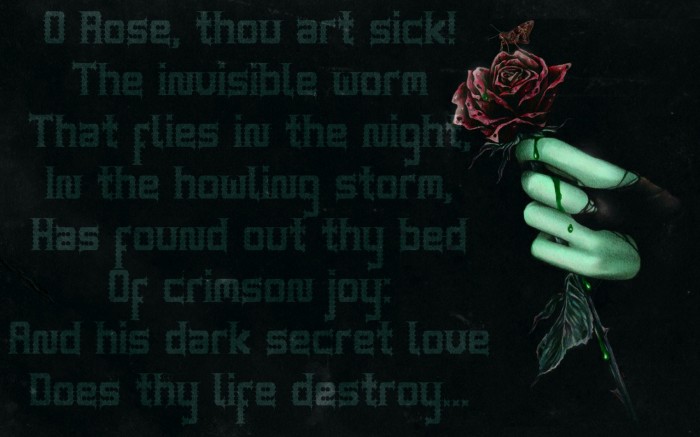
One example of this font.
Another example of this font in smaller size
In smaller size
I don't remember when I last saw a font that was so perfectly described by its name. The font is beautiful but like a rose needs to be handled carefully, I pricked my finger just reading your samplers! The font is clear, well spaced, delightful when large and easily legible when small ... except for the dropped "f" which stopped my reading flow dead, and the lowercase "n" which I found difficult at the smaller size. I hope you will accept the criticism as constructive as I really like this font. 9/10 bordering on 10/10
The dropped f couldn cause broken reading flow as it's not in the usual position? Might be easier with the top horizontal just above the x-line? Great sampler for an attractive novel font, and a good descriptive name!
Improved lowercase n and f to improve legibility at smaller sizes